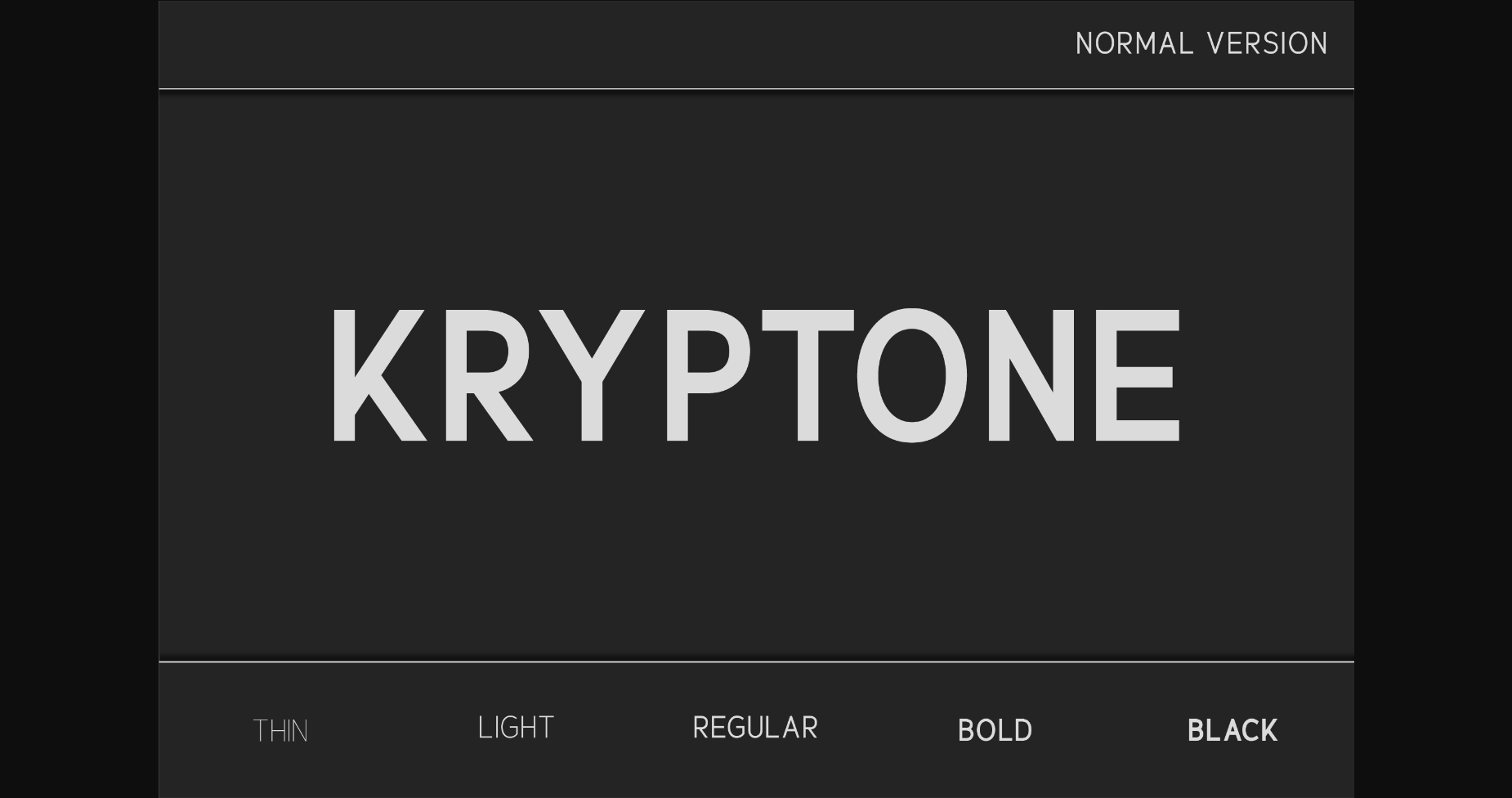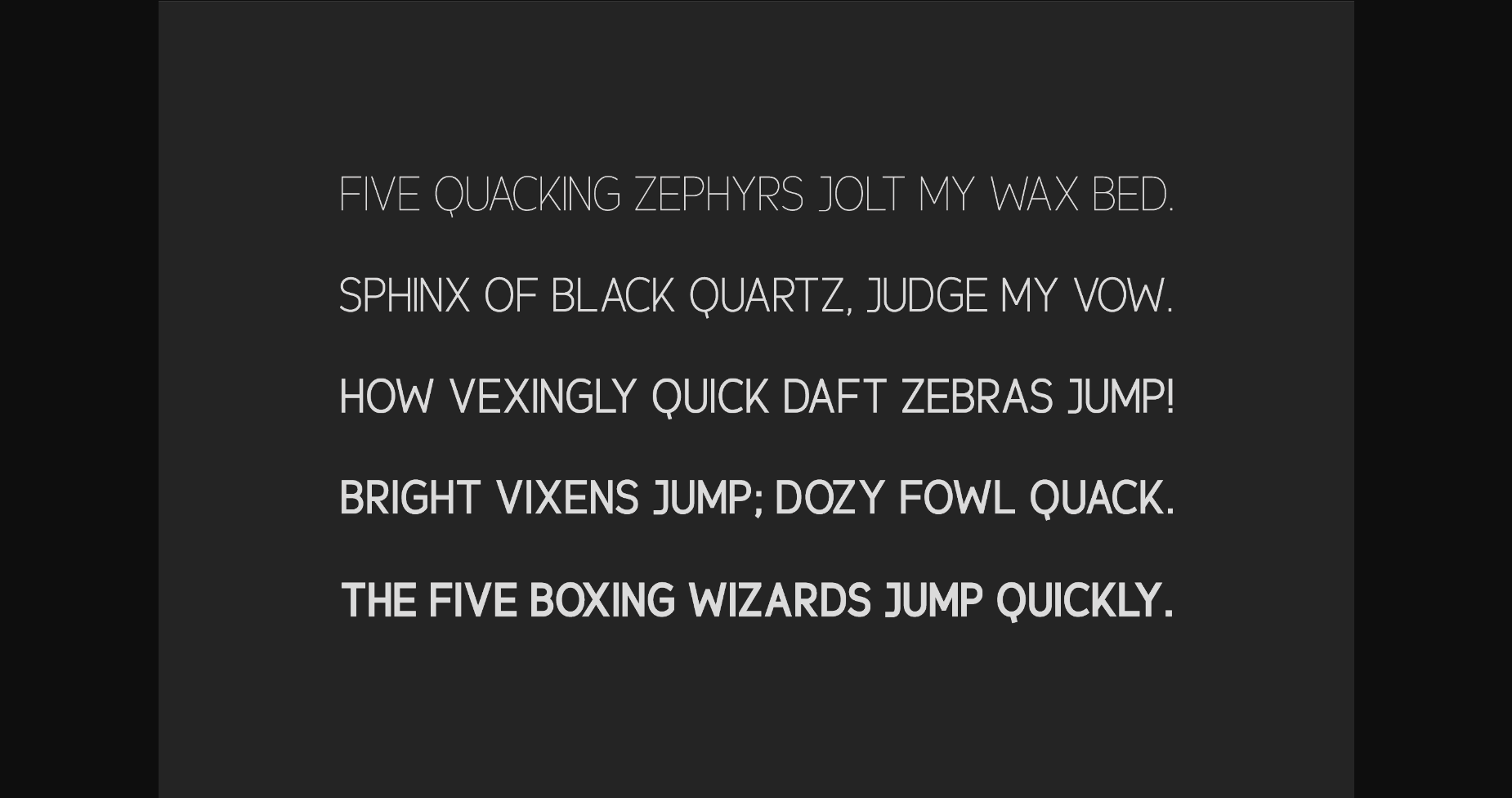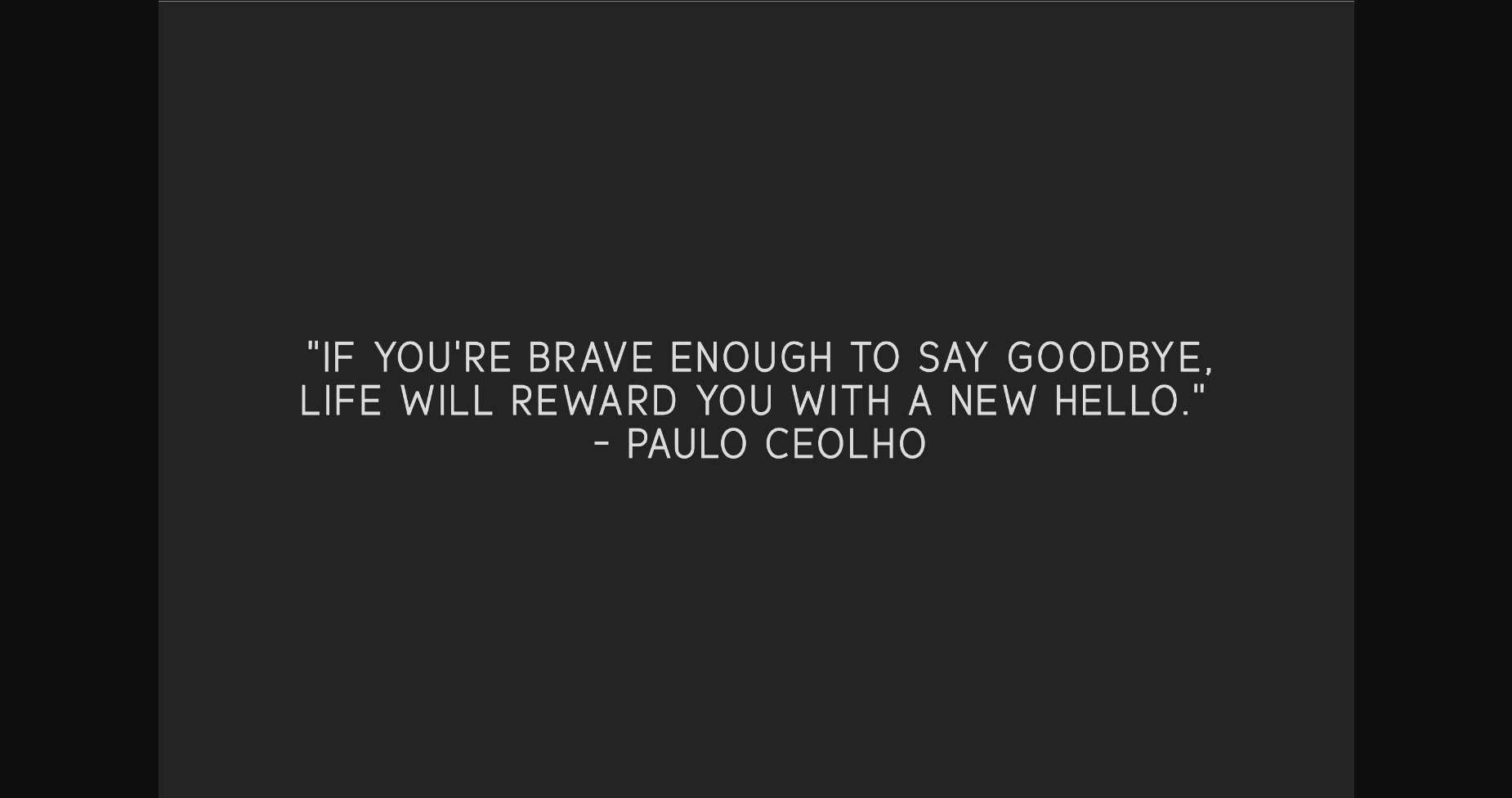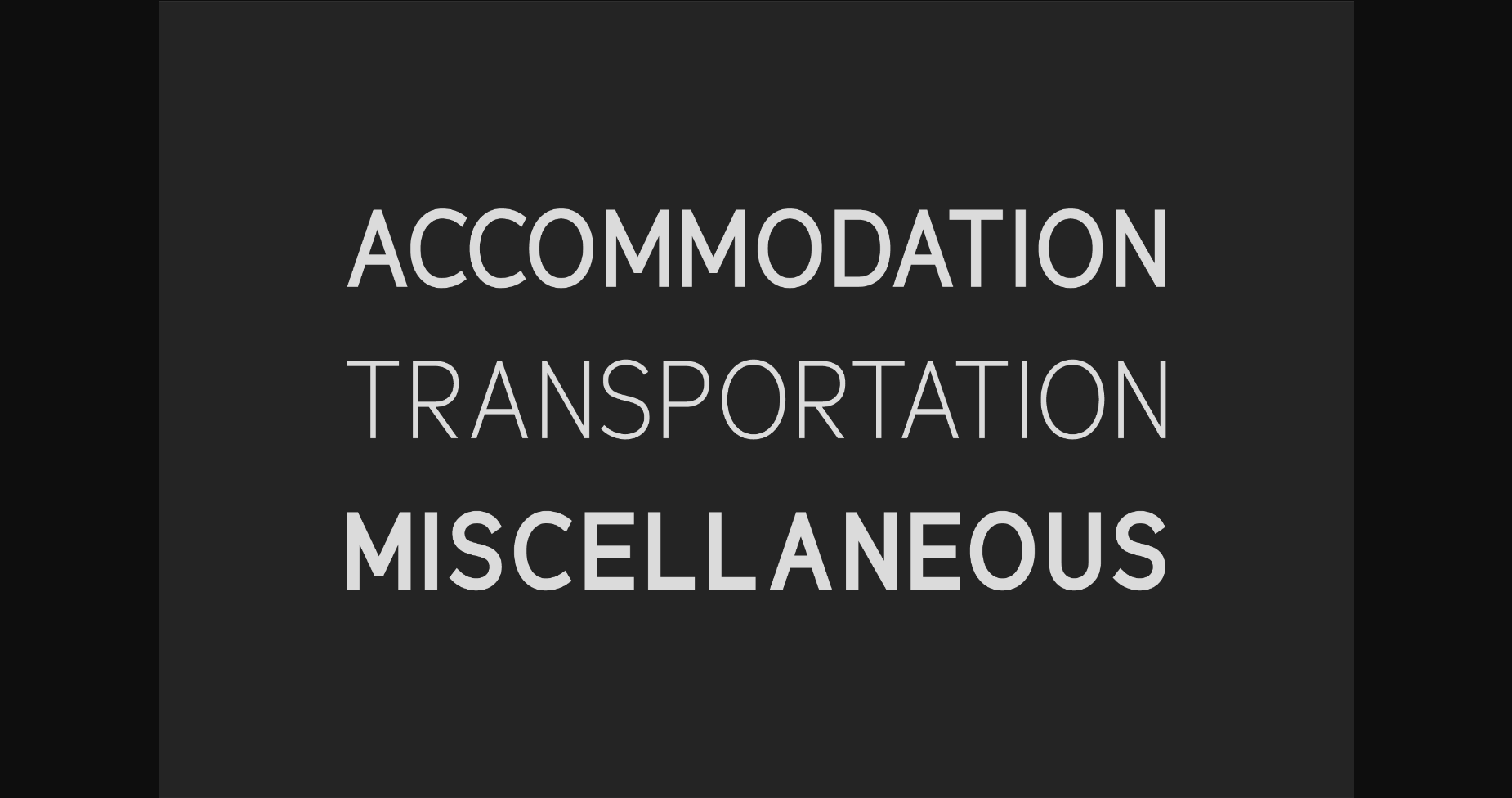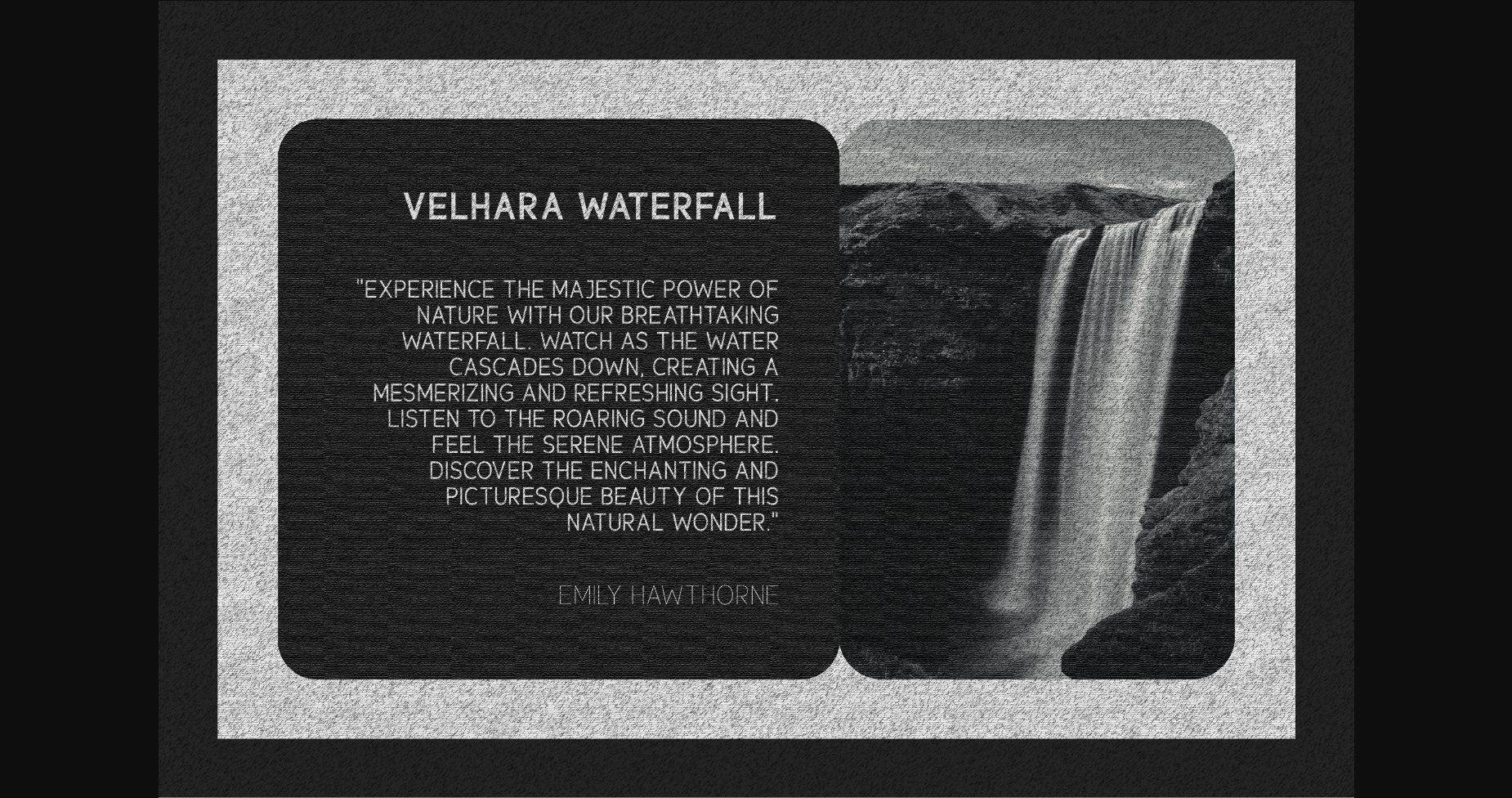
About Kryptone Font
Introducing our exquisite font family, the Kryptone an embodiment of elegance and minimalism. With 5 distinct weights, this sans serif collection seamlessly combines modernity and luxury.